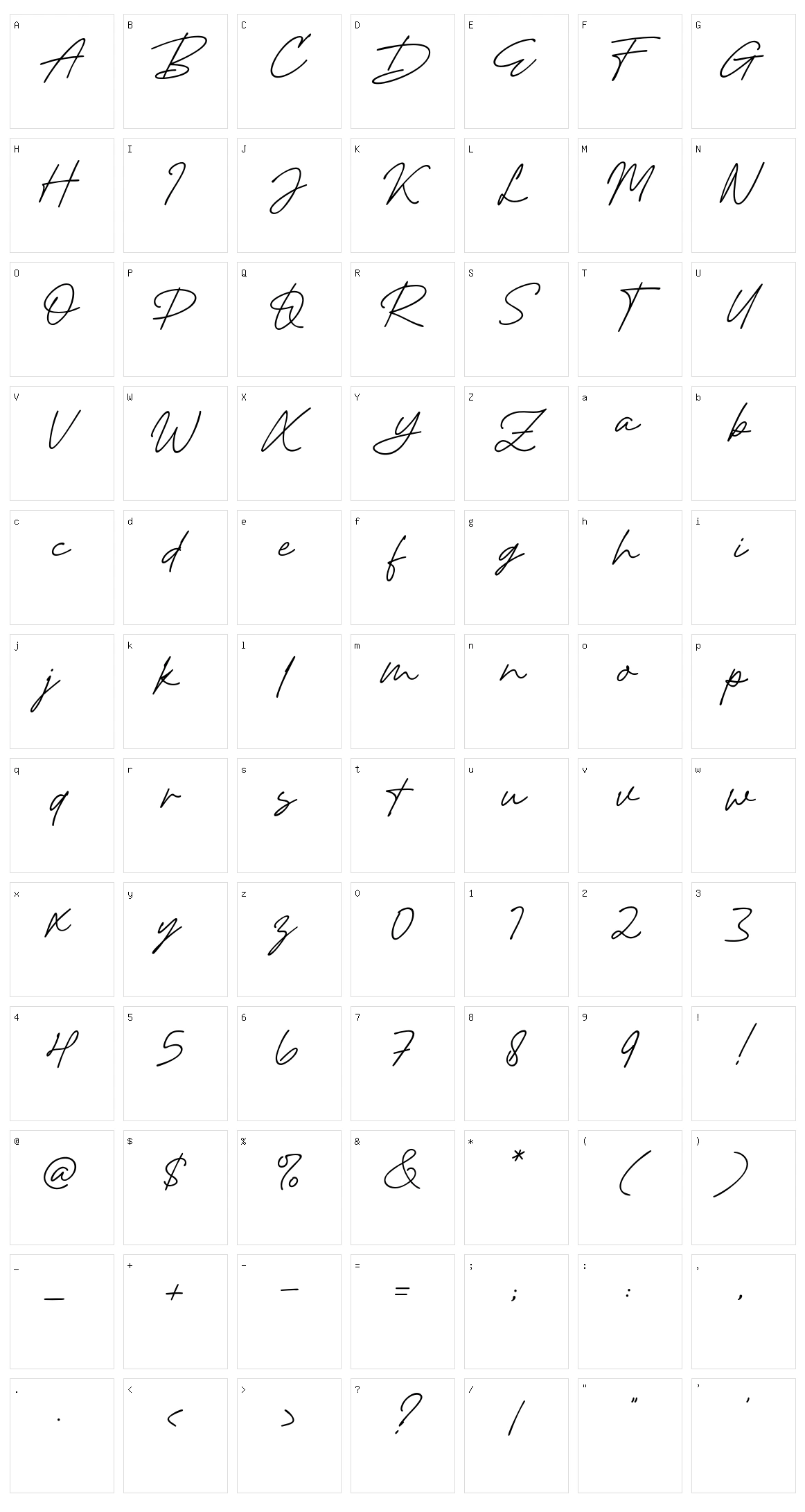
The free font August July is carefully designed by Khurasan, showcasing a thoughtful balance of creativity and usability and falls under the Script font style. When you download the ZIP file, it contains only 1111.19 KB of font files, making it lightweight and quick to download. Please review the license details below to understand permitted usage and distribution rights. If license information is not available, we recommend using this font for personal projects only or contacting the author directly for commercial usage permissions.